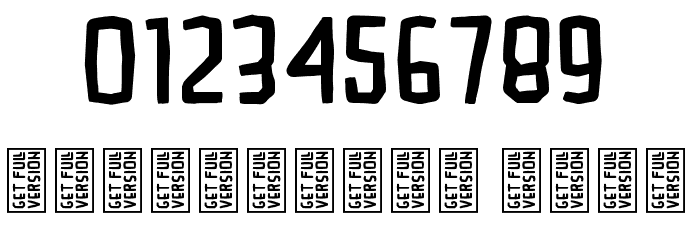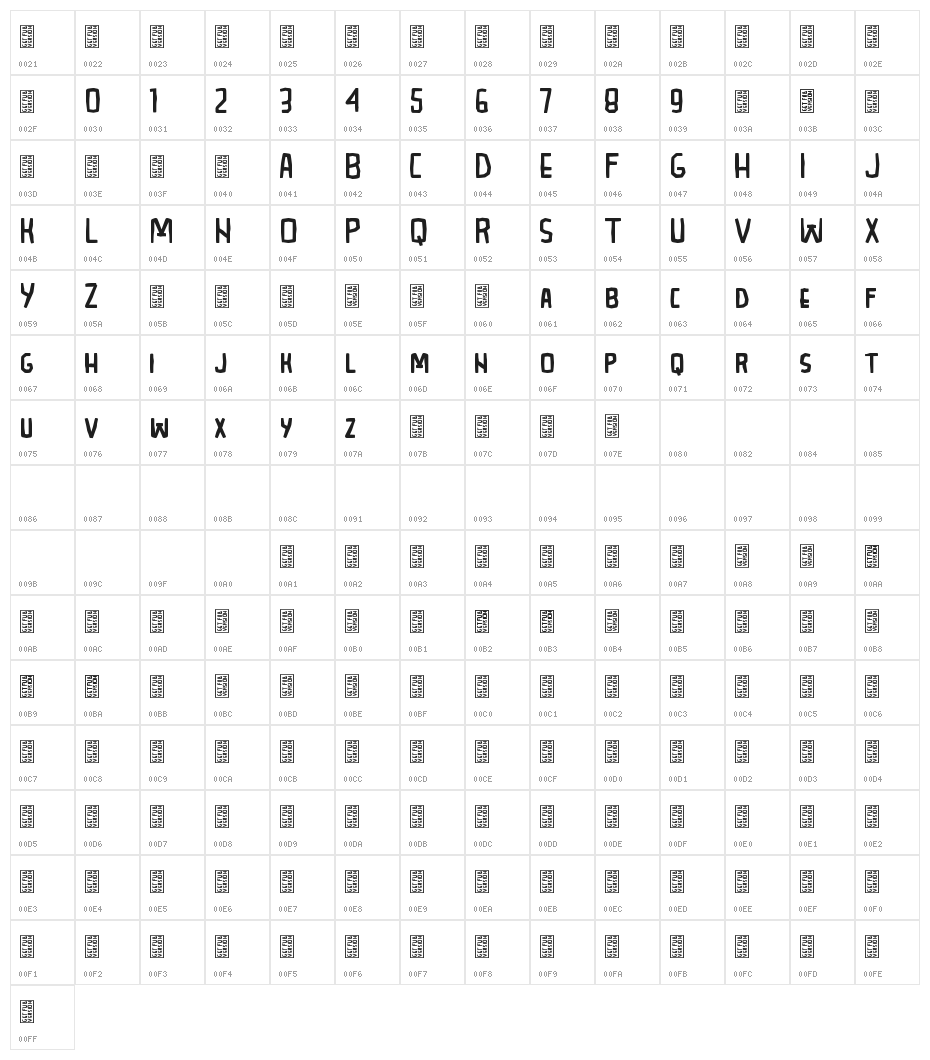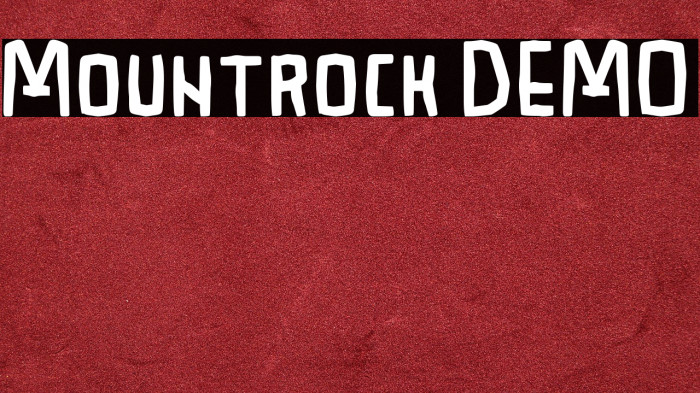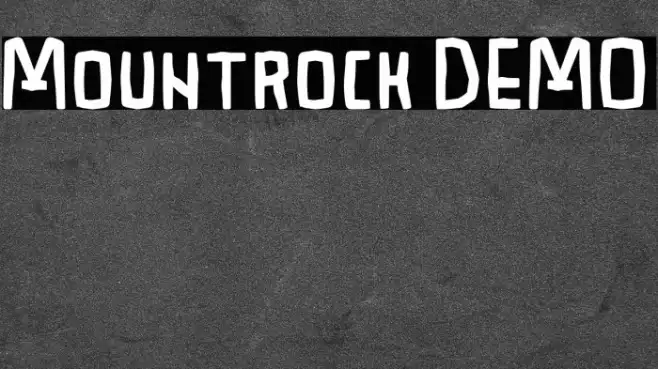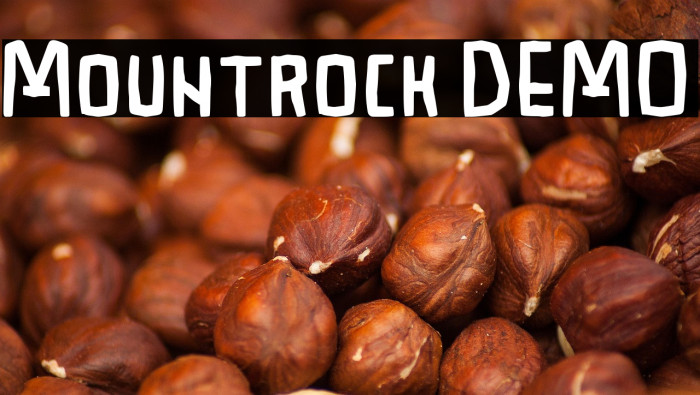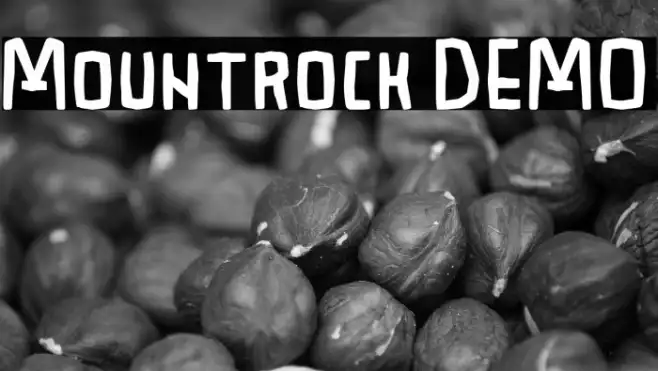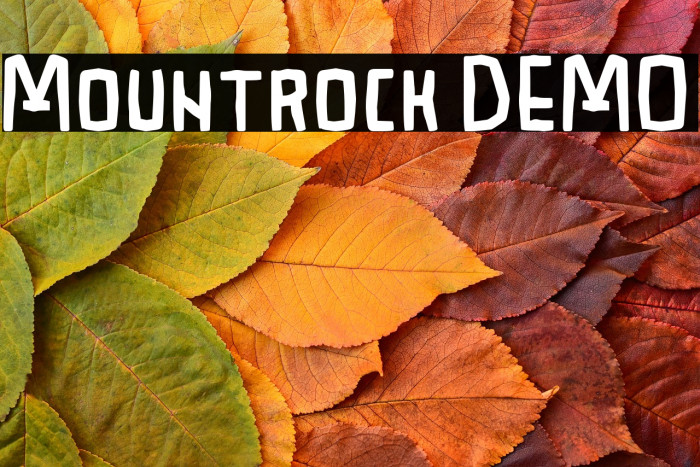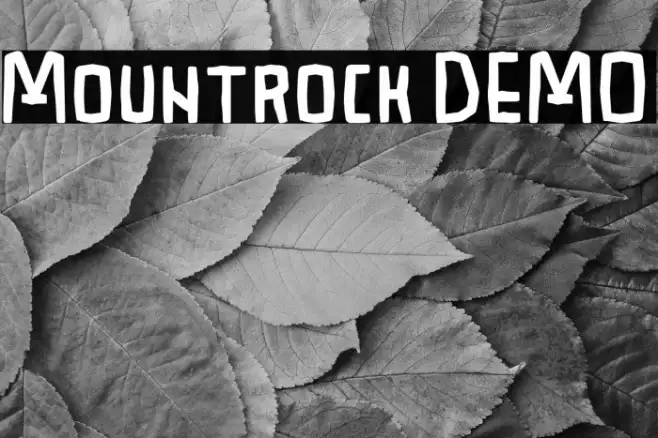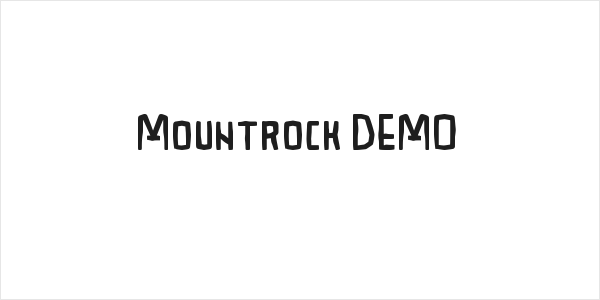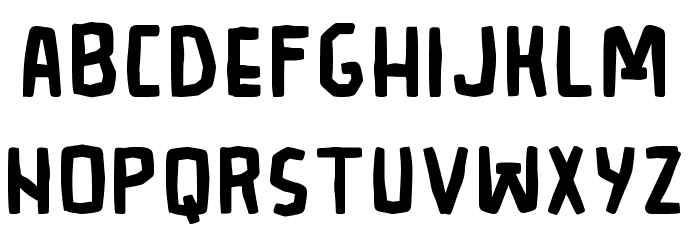
Mountrock DEMO Font
Mountrock DEMO Description
This font features a bold and rugged design with a hand-drawn aesthetic. The characters are slightly irregular, giving it a unique and organic feel. The uppercase letters are tall and narrow, while the lowercase letters maintain a consistent style, adding to the cohesive look. The numbers are bold and match the overall style, making them easily readable. This font is ideal for projects that require a strong and distinctive appearance, such as posters, headlines, or branding materials. Its boldness and character make it stand out, while the hand-drawn quality adds a touch of authenticity.
| Proposed Projects | Ideal for posters, headlines, branding, and any project needing a strong, distinctive look. |